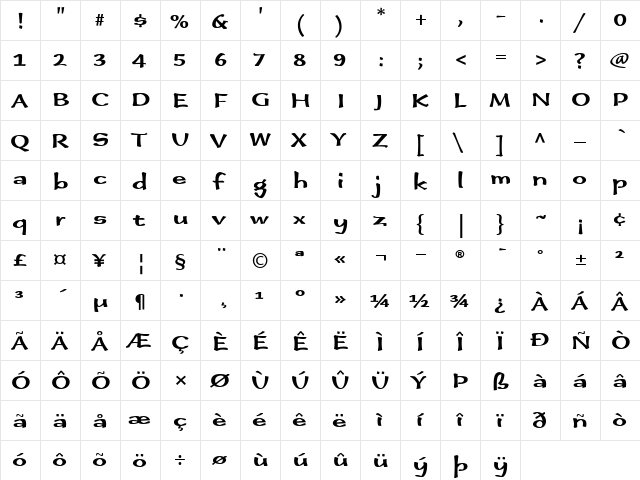
Immi505 Roman
Design Context for Immi505 Typeface
Immi505 takes a measured approach to typography — its balanced proportions and neutral character make it a reliable workhorse for both digital and print work.